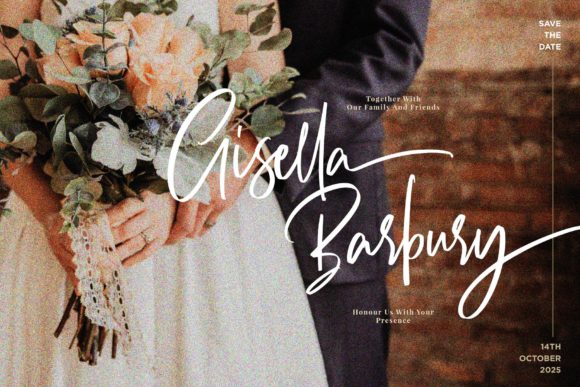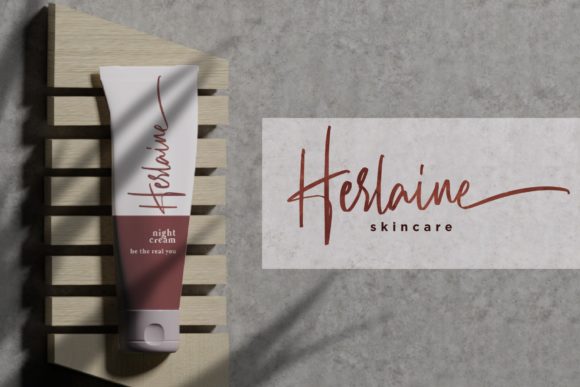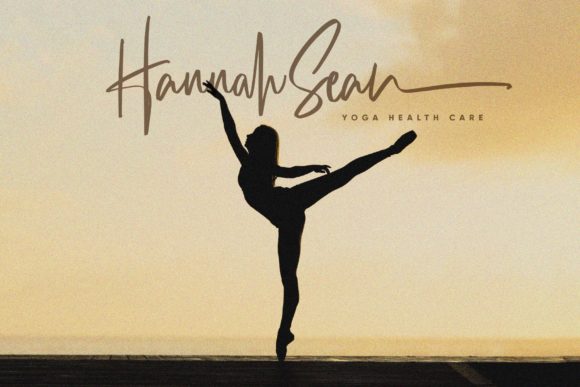
The Secret to Captivating Designs: Exposedly Font
Have you ever stared at a blank page, waiting for that elusive spark of creativity to strike? You know, that moment when the perfect font pops into your head and suddenly your design idea transforms from bland to grand? For designers, this moment is the holy grail – and it’s exactly what makes Exposedly Font a game-changer.
Exposedly Font is an expertly crafted script designed to add a charming, whimsical touch to any design. With its elegant curves and playful flair, it’s the perfect choice for creating eye-catching titles, headings, and even entire branding identities.
What makes Exposedly Font so valuable for designers? Its versatility and adaptability, for one. Whether you’re working on a romantic wedding invitation or a trendy fashion label, Exposedly Font is sure to bring a touch of sophistication and personality to your work.
Exposedly Font Key Features
- Font Family: Exposedly Font comes in two font families – Regular and Bold, providing a versatile range of options for designers and typographers.
- Unique Characteristics: The font’s unique blend of modern and vintage elements, along with its highly legible and readable design, makes it an ideal choice for designers seeking a distinctive yet functional font.
Exposedly Font Review
Overall, I was excited to dive into the world of Exposedly Font, but my experience was a mix of delight and disappointment. Here’s my honest take on this font.
- Uniqueness: Exposedly Font brings a fresh and modern feel to any design project. Its unique character shapes and letterforms make it stand out from the crowd.
- Legibility: Despite its bold appearance, Exposedly Font is surprisingly easy to read, even at smaller sizes.
- Creativity: This font is perfect for designers who want to add a touch of whimsy and playfulness to their work.
- Readability at very small sizes: While Exposedly Font is legible at most sizes, it can become a bit fuzzy at extremely small sizes.
- Limited language support: Unfortunately, this font may not be suitable for projects that require extensive language support, as it’s not as comprehensive as some other fonts.
Overall, Exposedly Font is a great choice for designers who want to add some personality to their work. While it may have some limitations, its unique style and legibility make it a great addition to any design project.
Getting the Most Out of Exposedly Font
For the best results, use Exposedly Font in bold or italic styles to add emphasis to your text.
Exposedly Font is perfect for:
- Marketing materials and advertisements
- Web design and digital interfaces